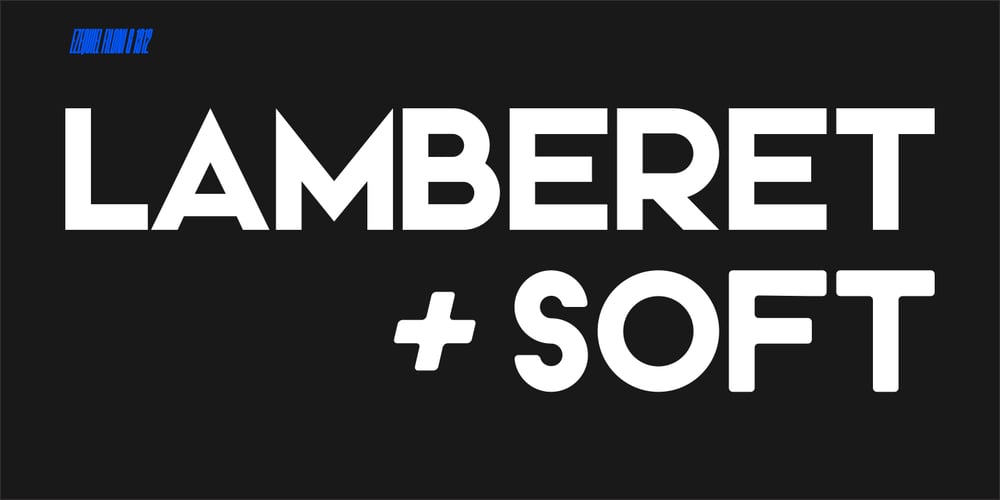
1312 Lamberet
1312 Lamberet font
1312 Lamberet Font Family was designed by Ezequiel Filoni and published by Ezequiel Filoni. 1312 Lamberet contains 4 styles and family package options. Lamberet is a geometric sans-serif typeface, all caps display font. Has a clean, sharp and emphatic form especially suitable for headlines, headings, branding, posters, packaging, titles, logos or whatever. It comes in its italics forms for regular sharp and soft versions.- Uppercase